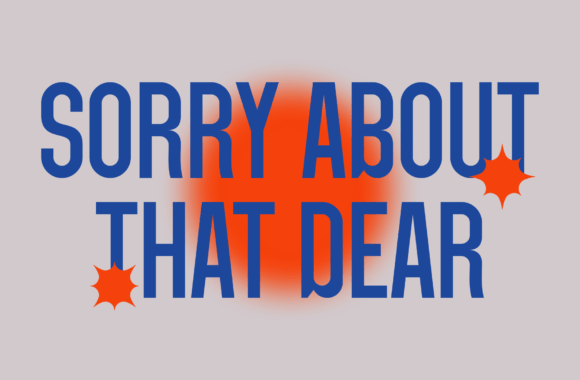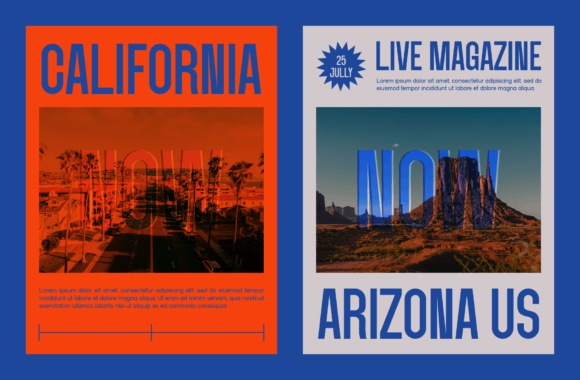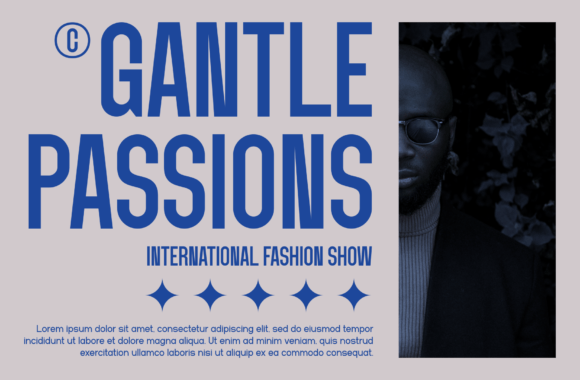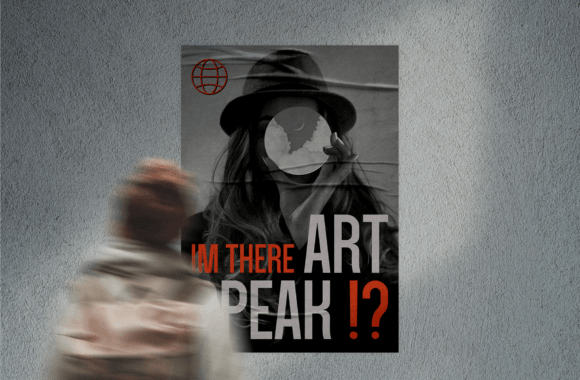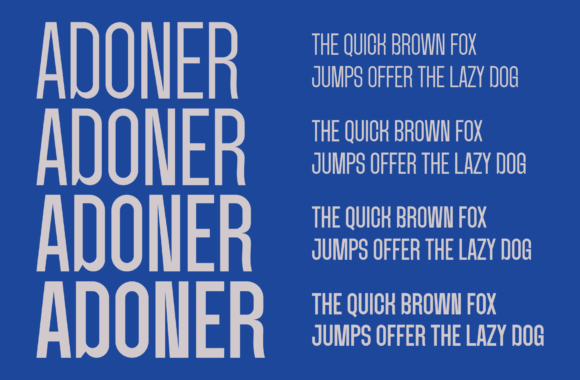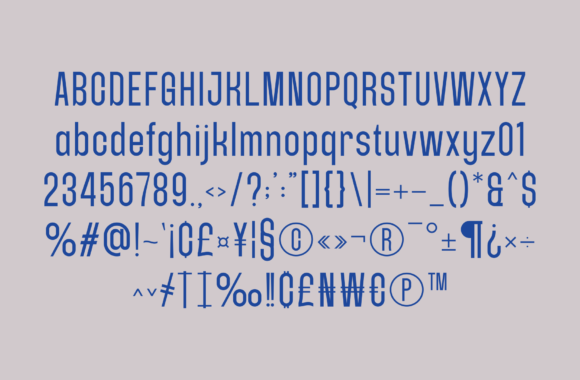
Introducing Adoner Condensed: The Ultimate Font for Modern Designs
In the realm of typography, a font can make or break the visual appeal of a design. With numerous options available, finding the perfect blend of style, clarity, and impact can be a daunting task. However, for those seeking a sleek, contemporary look that commands attention, Adoner Condensed is the ideal choice. This sans serif font embodies confidence and sophistication, making it an excellent addition to any design project.
The Versatility of Adoner Condensed
Adoner Condensed is not just another font; it’s a versatile tool designed to elevate your designs to new heights. Its compact form and bold, sans serif style ensure that your message is conveyed with clarity and impact. Whether you’re working on a title, website, poster, or magazine, this font provides the perfect blend of modern aesthetics and readability.
Suitable for Titles
When it comes to titles, the font you choose can significantly influence the overall perception of your design. Adoner Condensed offers a powerful presence that is hard to ignore. Its boldness and clarity of character make it an excellent choice for:
- Cover Pages: Make a lasting first impression with a bold, eye-catching title that sets the tone for the rest of the content.
- Subheadings: Use Adoner Condensed to create subheadings that complement the main title while adding a touch of modern sophistication.
This font ensures that your message is conveyed boldly and effectively, drawing readers in and encouraging them to engage with your content.
Ideal for Websites
In the digital age, having a website that stands out is crucial for any brand or business. Adoner Condensed can play a pivotal role in achieving this goal. Its optimum readability and modern aesthetics make it an ideal choice for:
- Navigation: Enhance user experience with clear, readable navigation menus that guide visitors through your site.
- Headings: Use Adoner Condensed to create headings that break up content and draw attention to key points.
- Large Text: For banners, hero texts, or any large display text, Adoner Condensed ensures your message is visible and impactful.
By incorporating this font into your website design, you can enhance your branding and grab visitors’ attention, encouraging them to explore your site further.
Perfect for Posters
Posters are a powerful medium for communication, and the font you choose can make all the difference. Adoner Condensed offers the clarity and visual power needed to create stunning and effective posters. Its ability to display large text in limited space ensures that:
- Your Message Stands Out: Even from a distance, your poster’s message is clear and visible, making it more likely to capture the attention of potential viewers.
- Design Space is Maximized: The condensed style allows for more information to be presented in a visually appealing way, without overcrowding the design.
Magazine-Ready
Magazines require a font that can handle a variety of design needs, from headings to body text. While Adoner Condensed is optimized for larger text displays, its legibility and modern look also make it suitable for:
- Headlines and Subheadlines: Create visually appealing and easy-to-read headlines and subheadlines that draw readers into articles.
- Pull Quotes: Use Adoner Condensed for pull quotes to add emphasis and visual interest to articles.
Its versatility ensures that your magazine design is both contemporary and engaging, enhancing the reader experience.
In conclusion, Adoner Condensed is more than just a font – it’s a design solution that caters to a wide range of needs. Its sleek, contemporary design, combined with its versatility and readability, makes it an excellent choice for designers and crafters looking to elevate their projects. Whether you’re creating titles, designing a website, crafting posters, or working on a magazine, Adoner Condensed is poised to bring a modern feel and a powerful presence to your designs. Embrace the sophistication and impact of Adoner Condensed and take your designs to the next level.